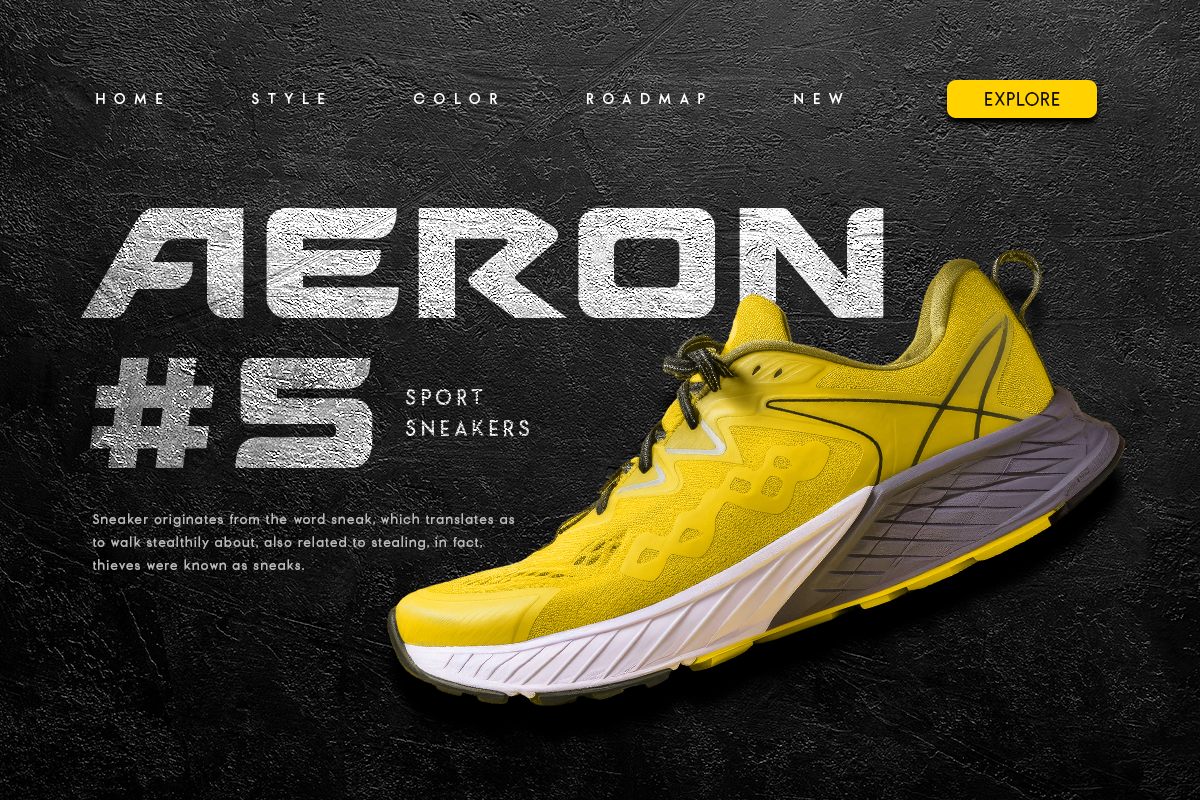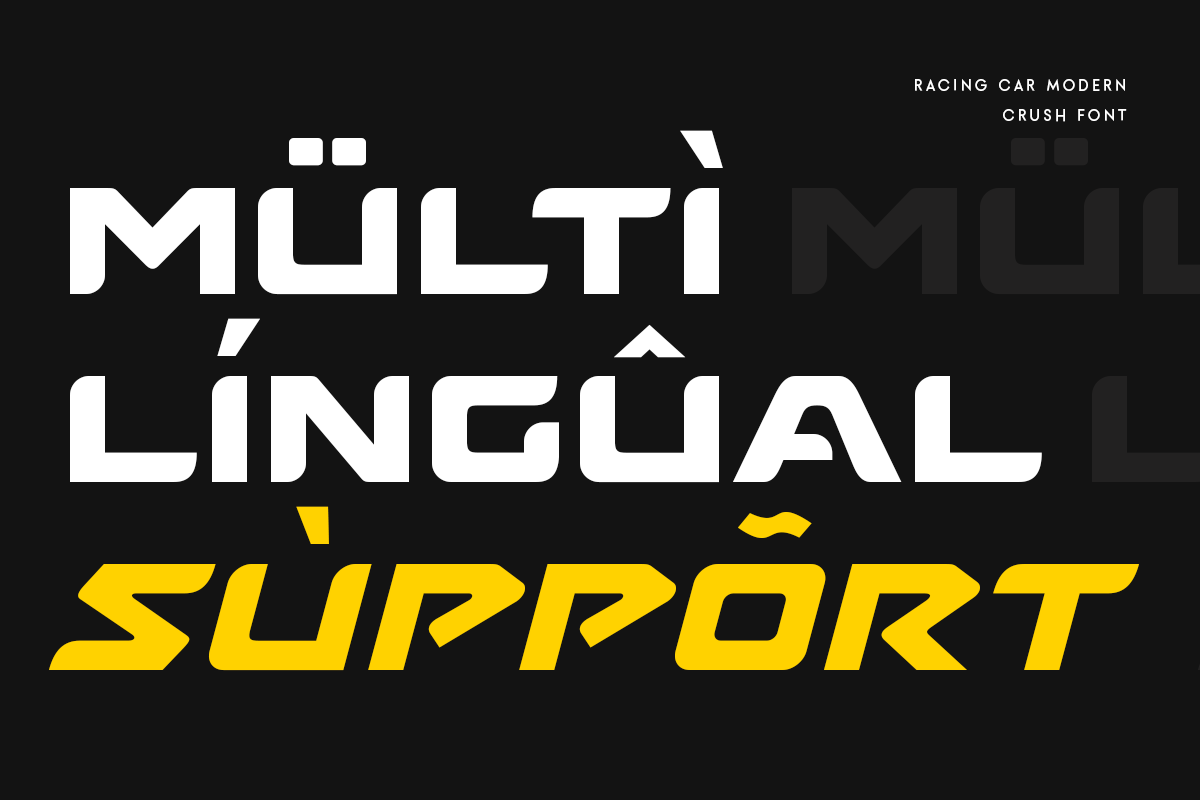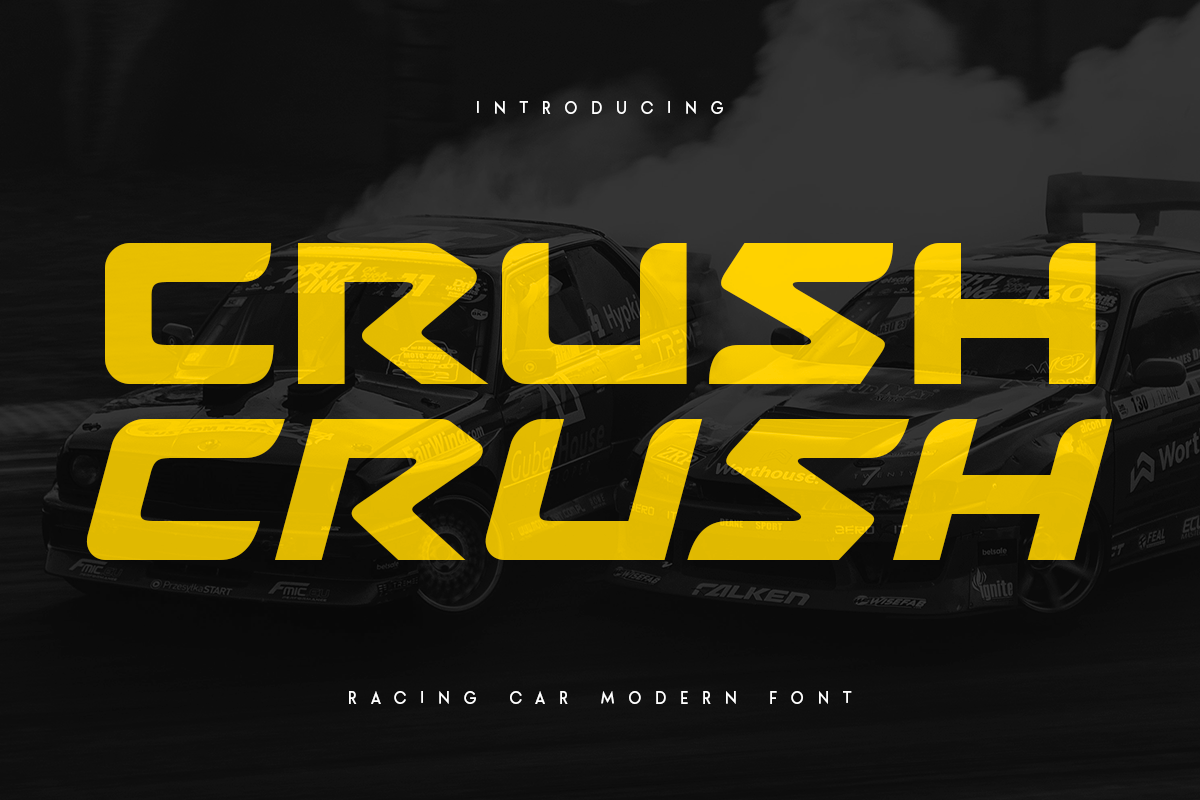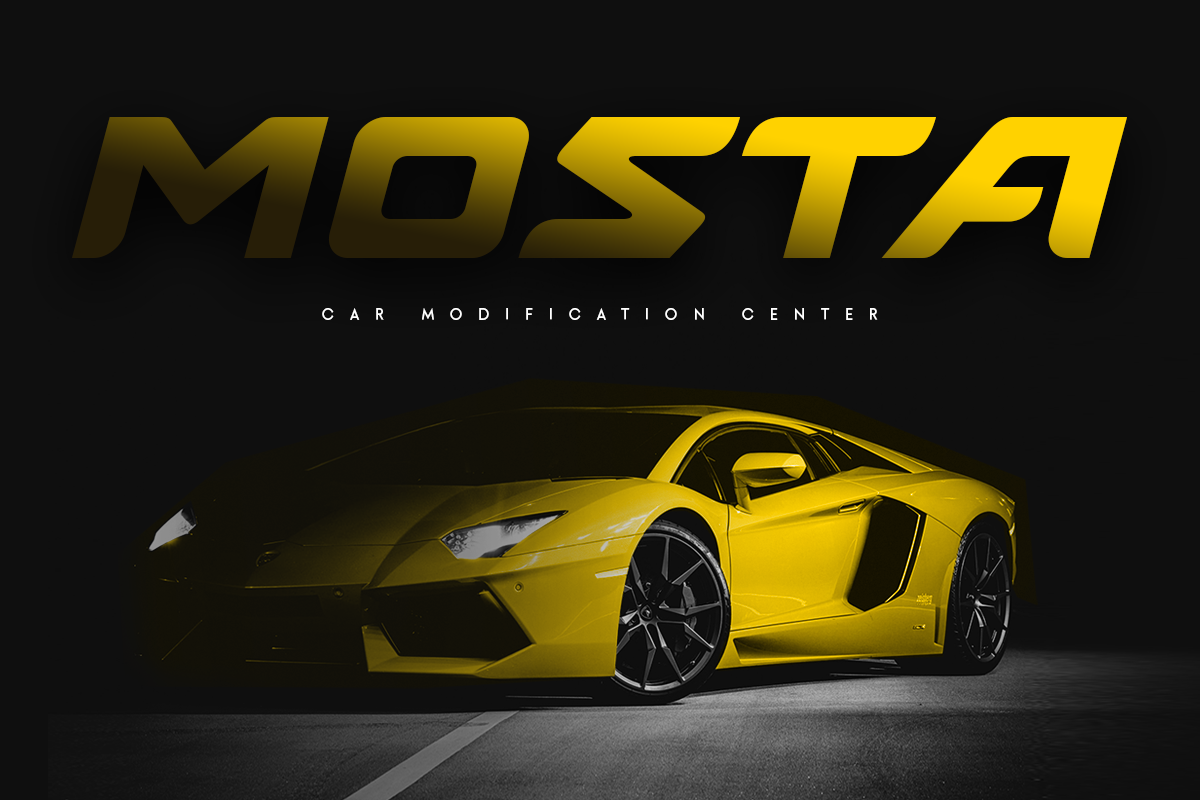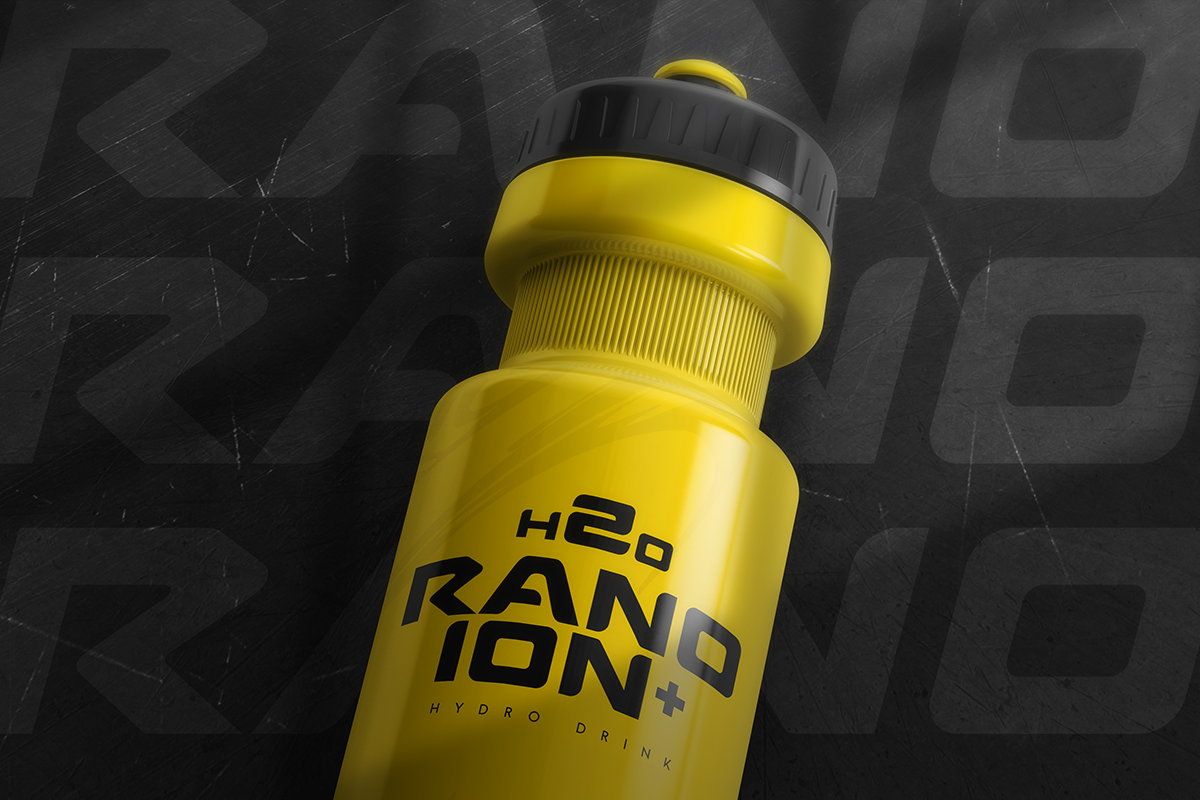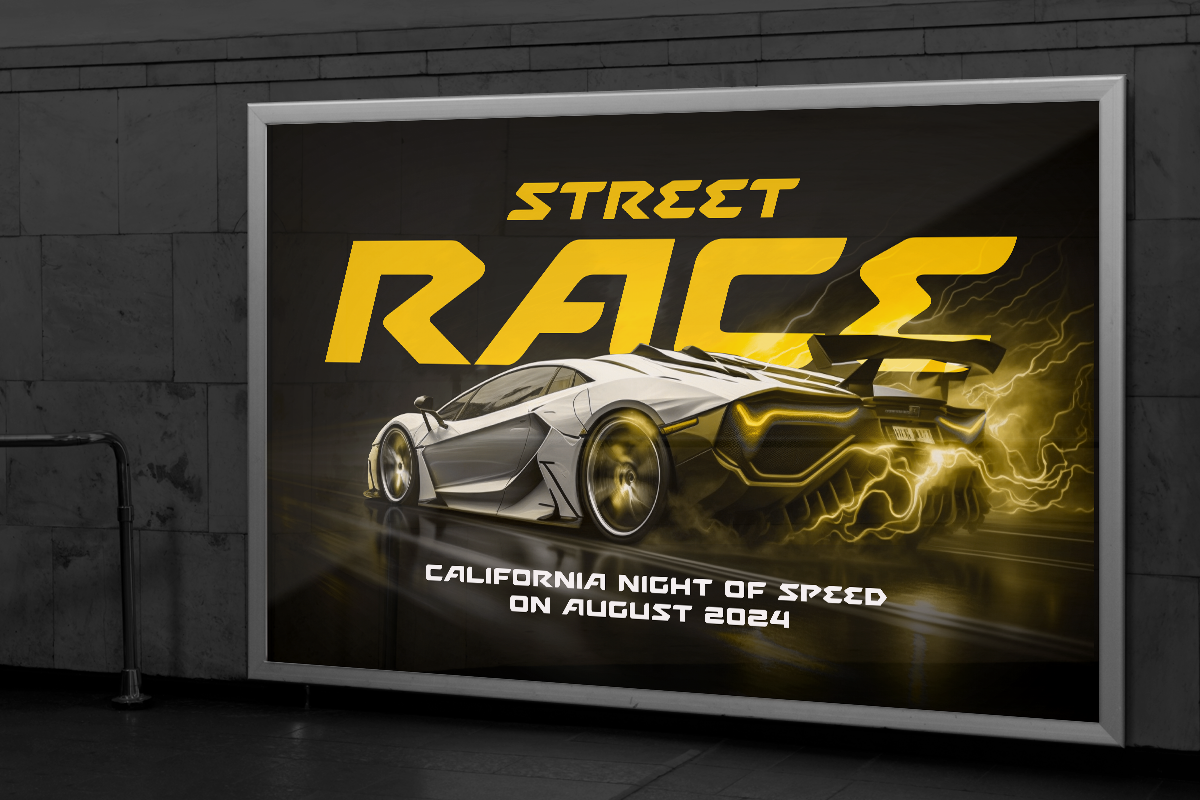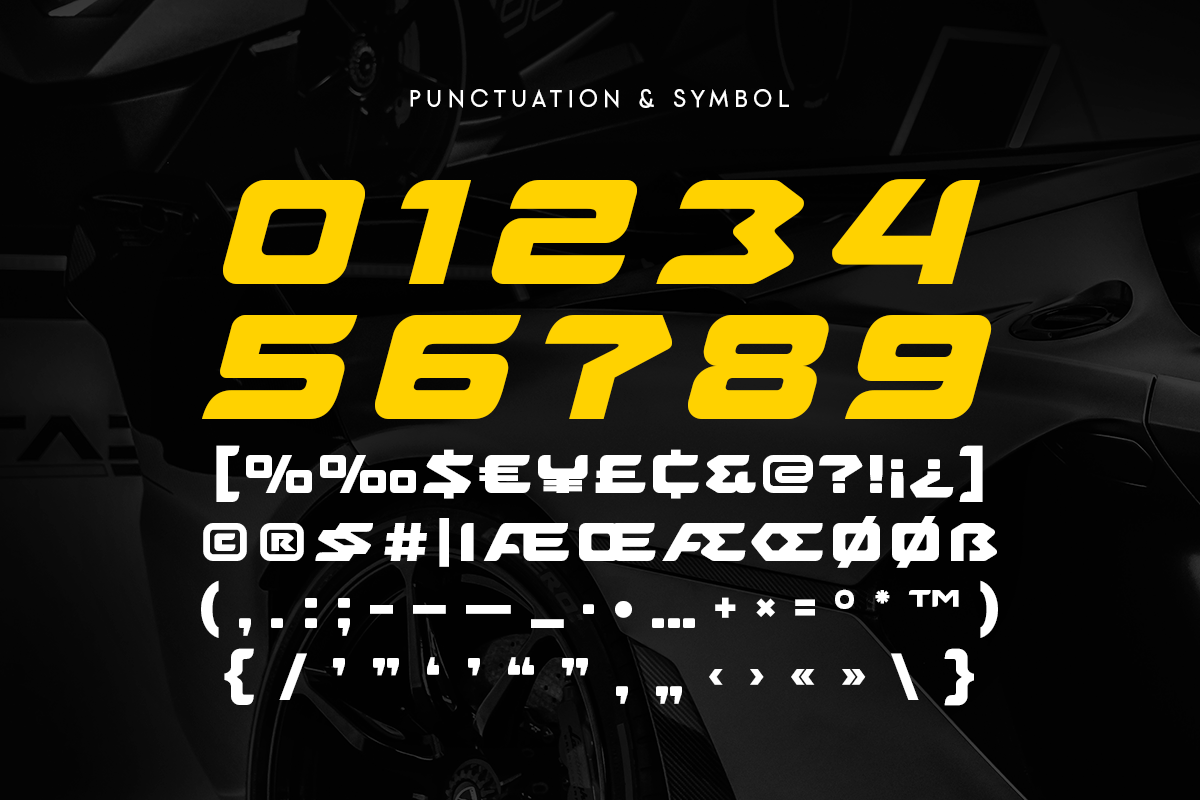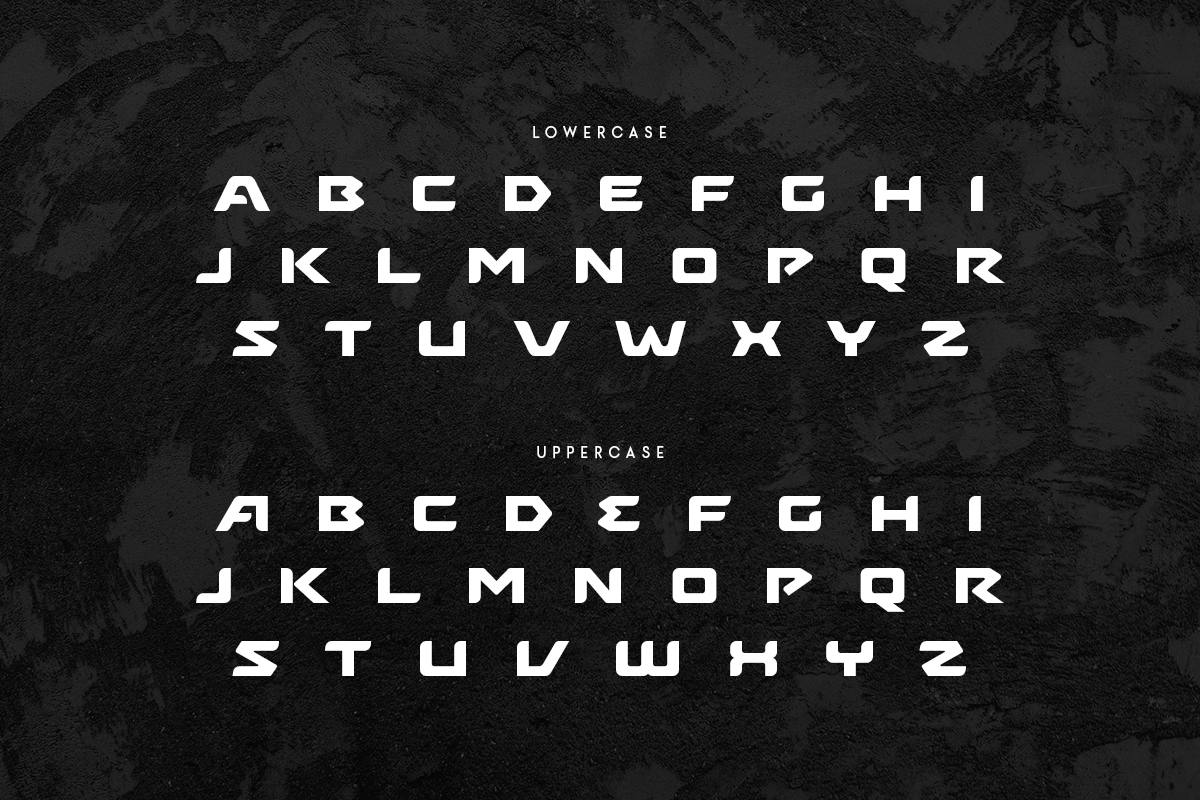
CRUSH - Racing Car Modern Font
CRUSH, a Racing Car Modern Font that created special for Branding, Title and more stand out typography for sport and action. It's so perfect to add your style and headline overview for sport, technology, actions, and fighting theme. And specially for this font, we crafted for bold action style and modern feels so enjoy to create any project that will show your main idea out.
CRUSH Racing Car Modern Font ready with:
- Creative characters prepared to get best results
- Preview as a inspirations that you can do with Racer font
- Ready with All Uppercase characters